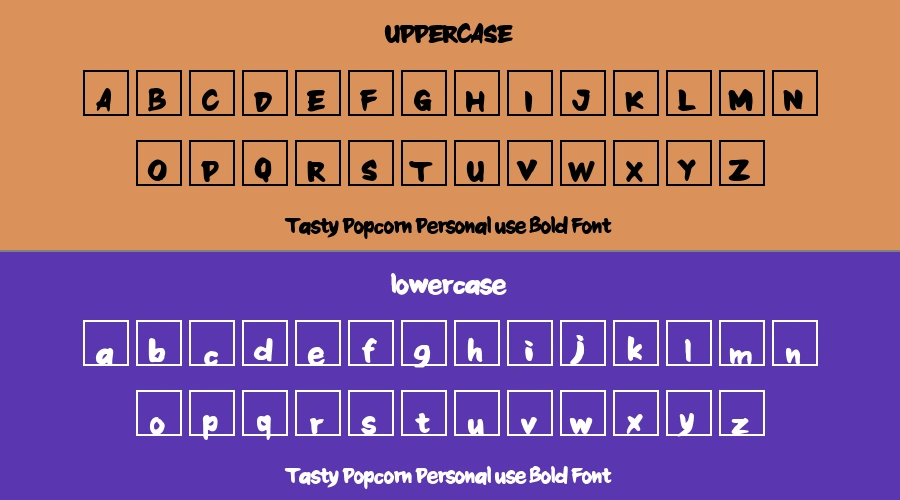
About Tasty Popcorn Personal use Bold Font
Designed with precision, Tasty Popcorn Personal use Bold Font merges systematic design with traditional values in every character. This versatility makes it particularly effective for brand launches, where value and market relevance directly impact communication quality. Each letterform demonstrates meticulous craftsmanship.
Technical excellence shines through elements like pen-inspired details and titling alternates, enhancing typographic versatility. In creative titles settings, Tasty Popcorn Personal use Bold Font proves its worth through superior readability. The thoughtful execution of character width and market position ensures professional results.